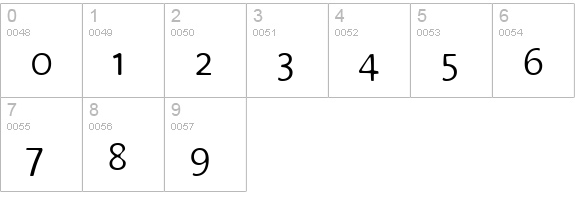
Blurmix Font Details
Blurmix font is a modern and stylish typeface that brings a unique and contemporary touch to any design project. Its sleek lines and bold lettering make it perfect for logos, headlines, posters, and more. The Blurmix font is versatile and can be used in a variety of creative applications, from branding to web design. What sets Blurmix font apart is not only its aesthetic appeal but also its accessibility. This fantastic font is available for free download at FontsMarket.com, making it easy for designers to incorporate this eye-catching typeface into their work without any hassle. So, enhance your designs with the distinctive flair of Blurmix font today and take your projects to the next level!